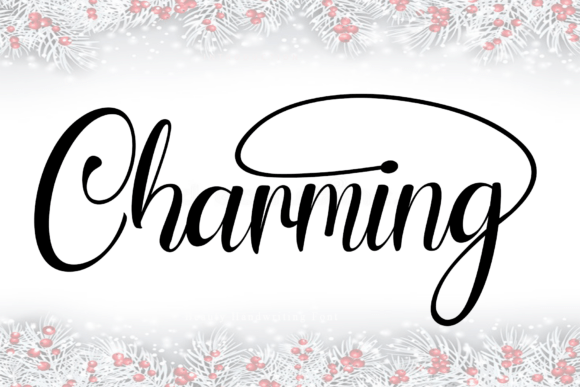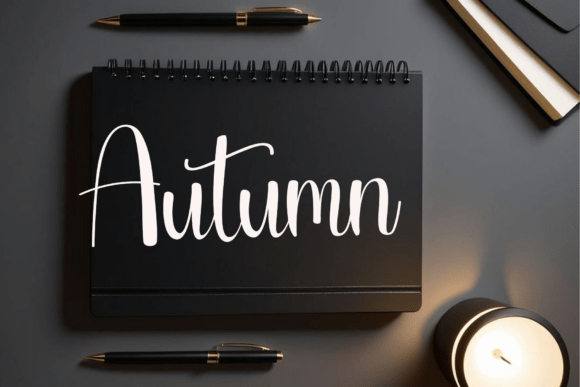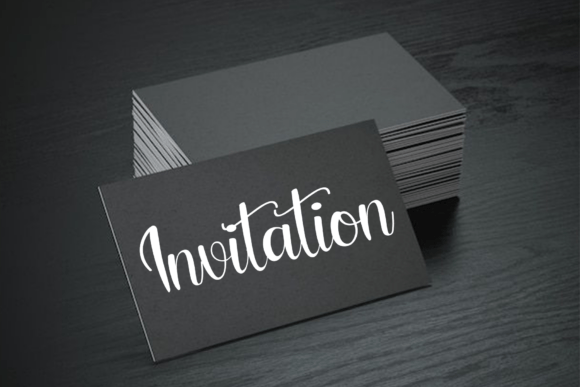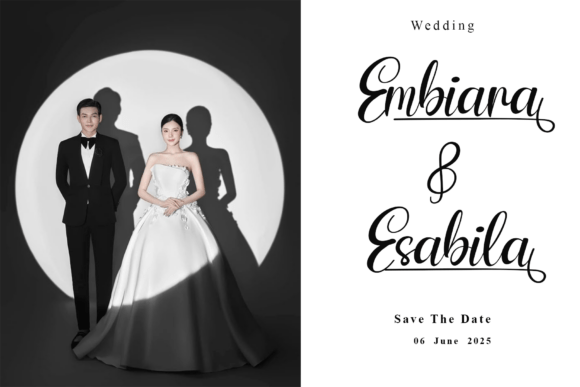
About the Charming Font
Crafted with precision, the Charming Font is ready to bring your ideas to life. Charming is an elegant handwritten font that features flowing, graceful letters. It has a soft and artistic style, making it perfect for designs that need a touch of sophistication. This font works well for invitations, branding, and any project that calls for a personal, stylish touch.
Charming Font Usage Examples
Charming Font Example